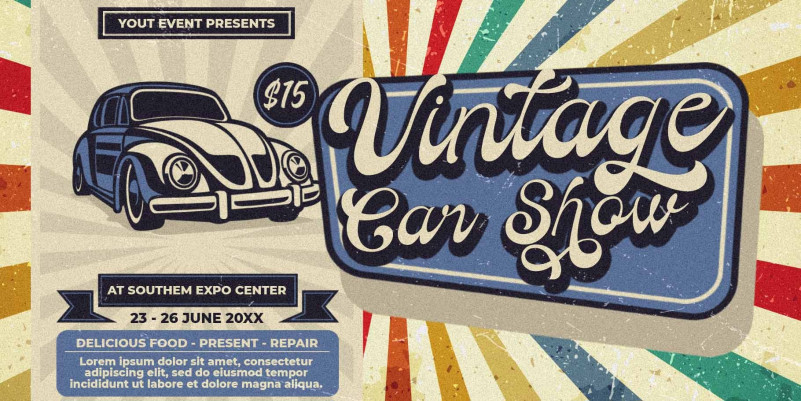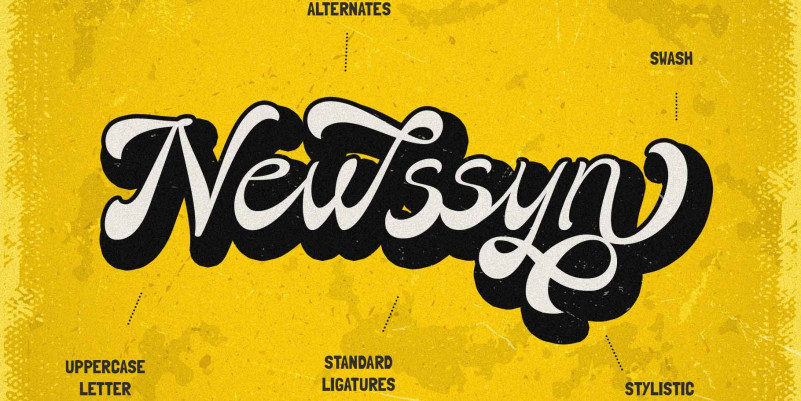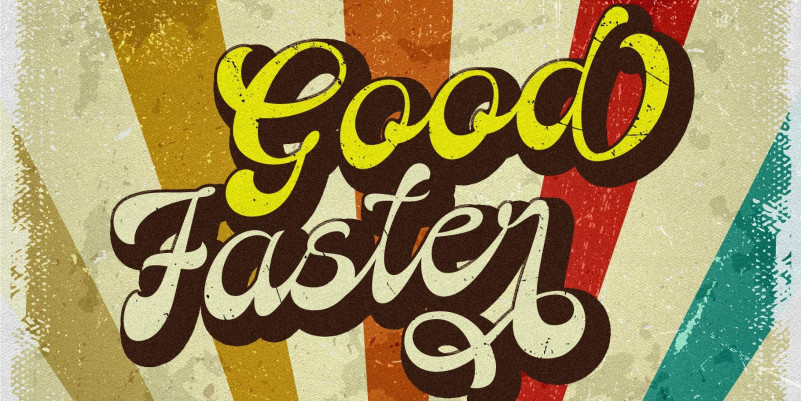
Good Faster Font
Good Faster Script Font, is retro script font, It can easily be matched to an incredibly large set of projects, so add it to your creative ideas and notice how it makes them stand out!